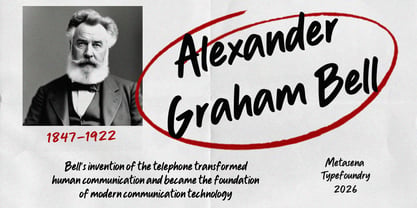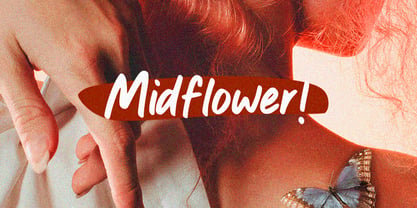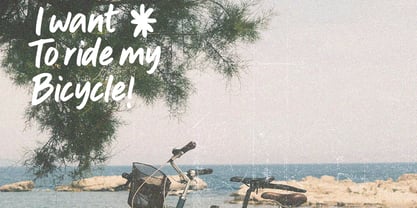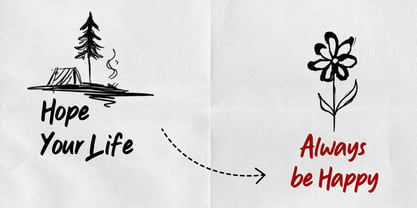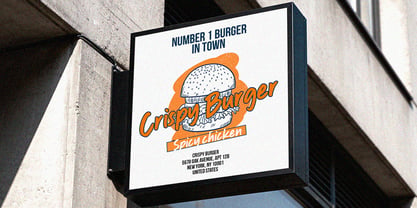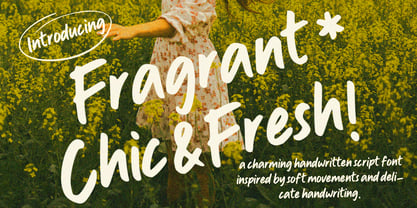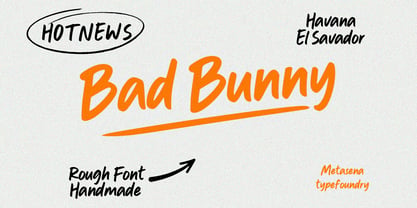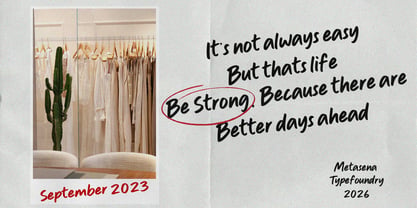
Fragrant Chic & Fresh
The Fragrant Chic & Fresh Font Family was designed by Ainal Mardiah and published by Metasena Typefoundry. Fragrant Chic & Fresh contains 1 styles. More about this family
Fragrant Chic & Fresh is a handcrafted script font that beautifully blends natural charm with modern elegance. Each letter is carefully drawn by hand, creating soft, flowing strokes that feel warm, personal, and authentic. The delicate curves and subtle details give it a graceful rhythm, as if every word were written with love and intention. This font radiates a fresh, feminine, and stylish vibe while maintaining a chic and sophisticated presence. It is perfect for branding, wedding invitations, beauty packaging, boutique logos, social media content, and any creative project that calls for an aesthetic and heartfelt touch. With its balance of organic beauty and refined elegance, Fragrant Chic & Fresh delivers a sweet, stylish, and timeless look — a perfect choice for designs that aim to feel fresh, warm, and effortlessly captivating.